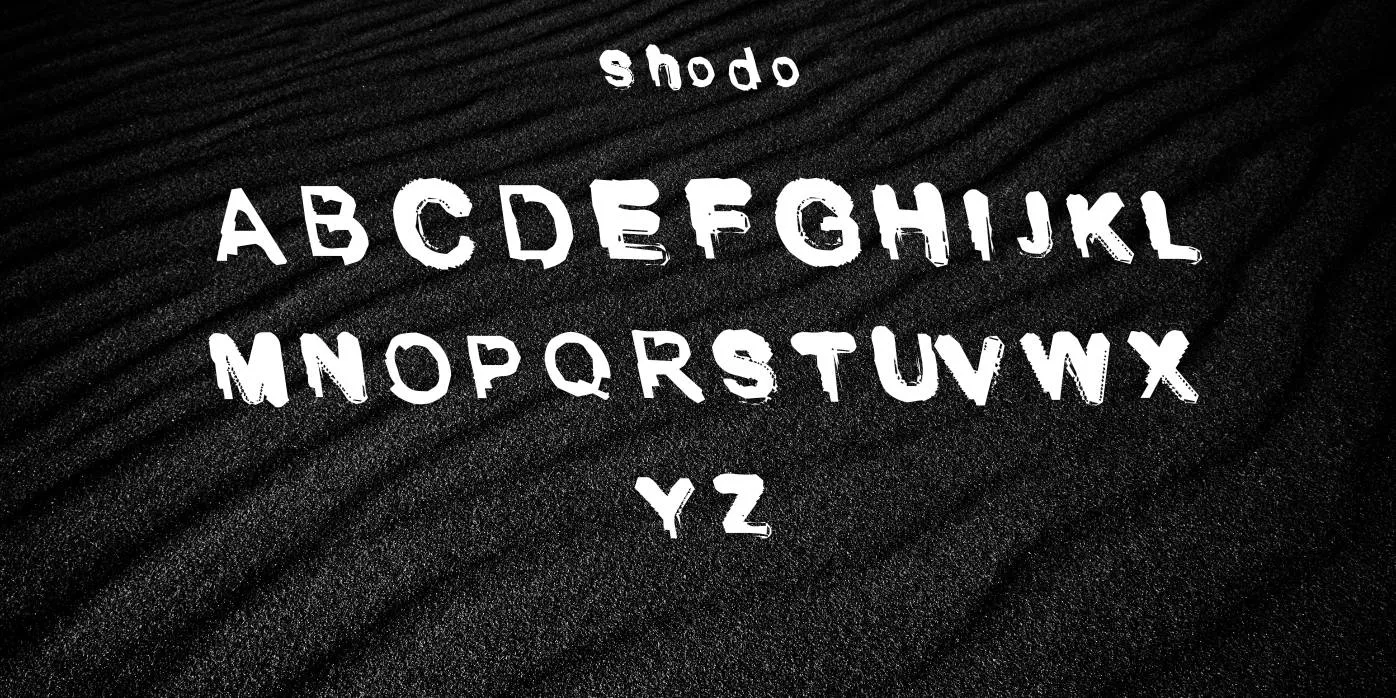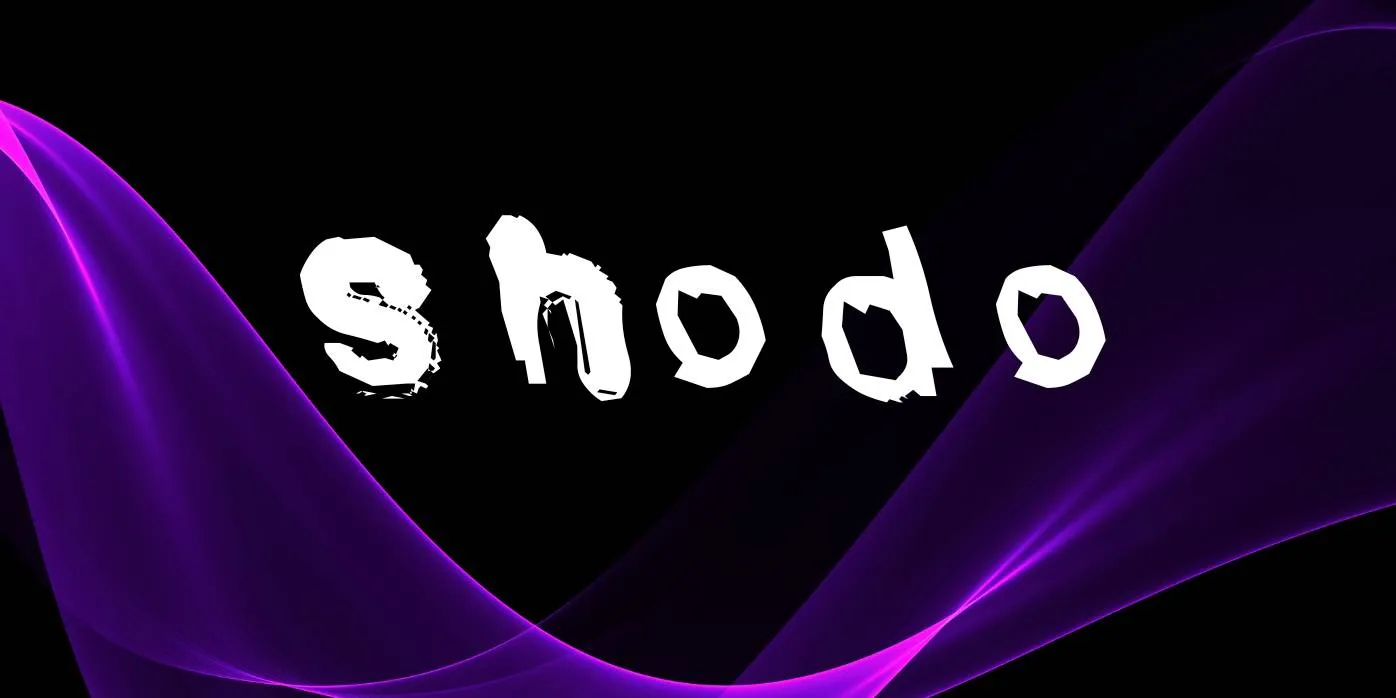
Shodo Font
Shodo font is designed by Yasuaki Yasumelt. This is a font that can be used for writing standard Japanese language. It is a very amazing font and can be used to design so many Japanese projects. It contains 253 characters 222 glyphs and 1024 units per Em.
The weight of the font is semi-light and its width is medium( normal). Unicode supported 2.0 and BMP only. Languages supported Latin and Symbols. An online generator tool also supports this font to change your simple text into a stylish look without downloading the font.
Usage It is a very interesting font and can be used to make so many different projects. It has characters, symbols, numbers, capital letters, small letters, punctuations, and special characters. This font was used to make Japanese language-related projects. You can be used to design banners, posters, and flyers.
You can print this font on mugs, T-shirts, and all types of fabric. It is considered a nice font for both print and digital media. You can make invitation cards, greeting cards, and much more by using this font. To make shops and restaurants name you can use it as well.